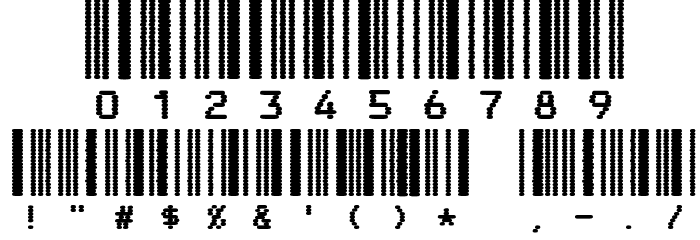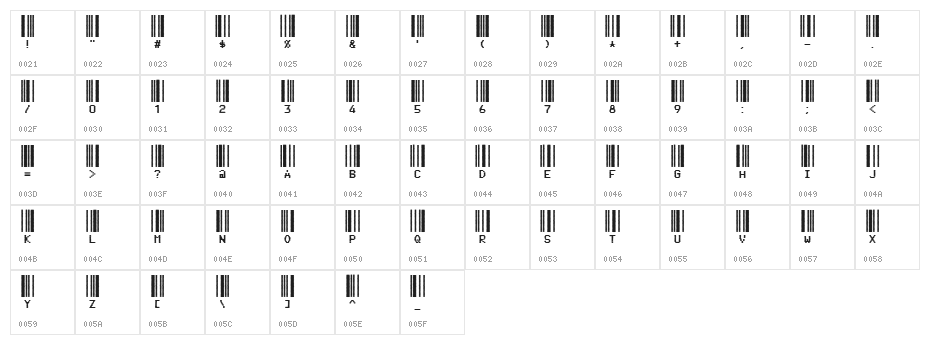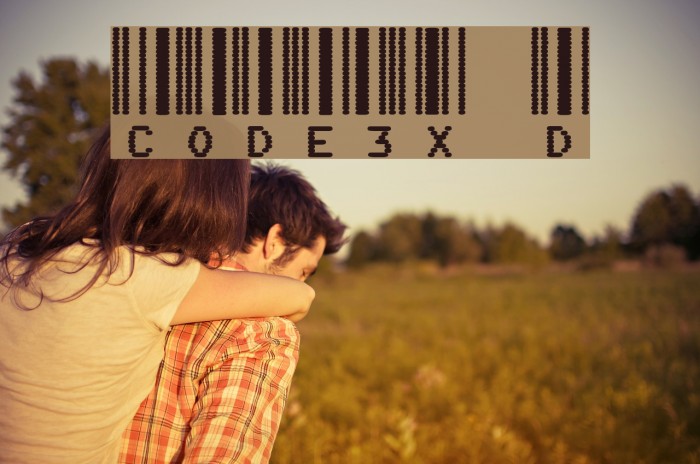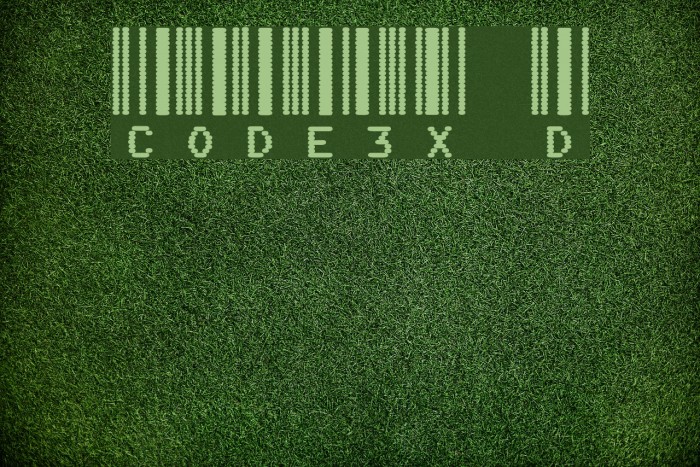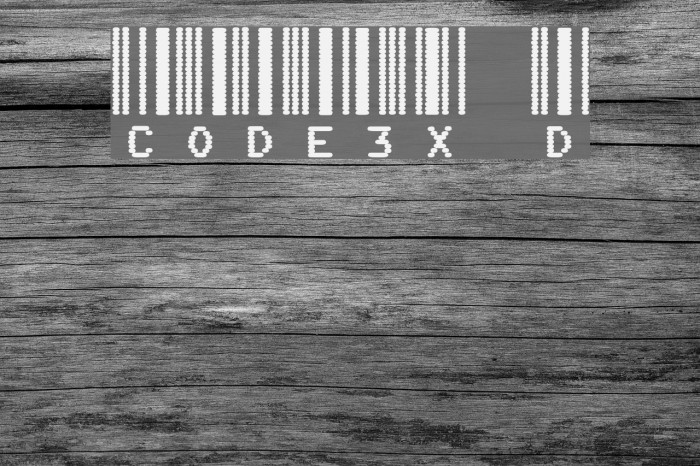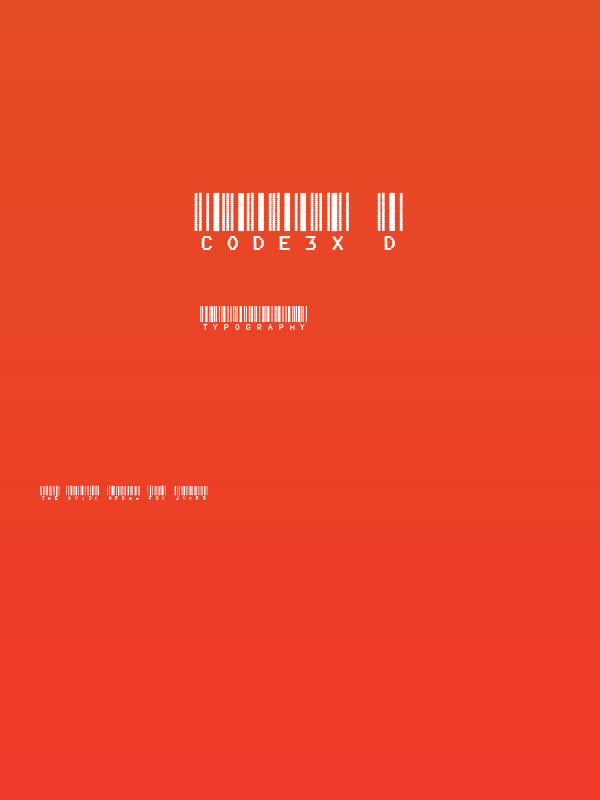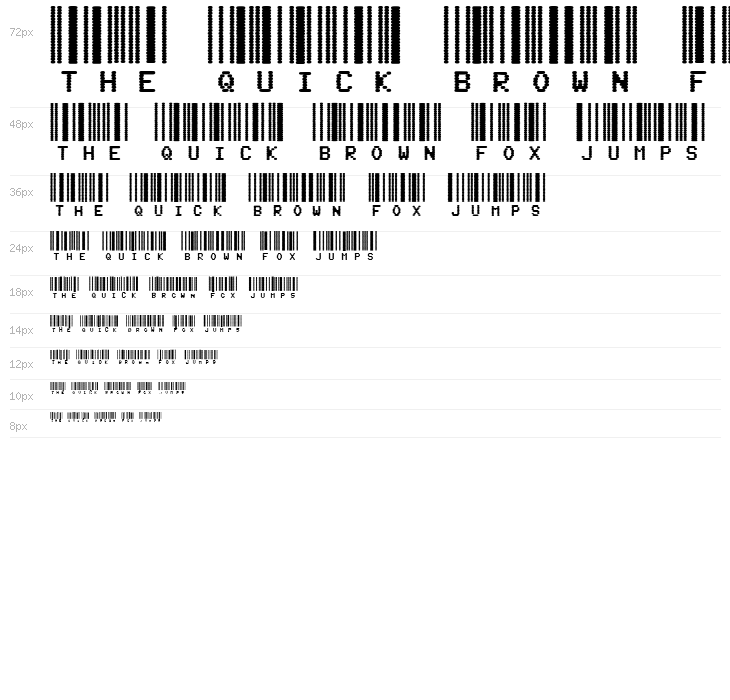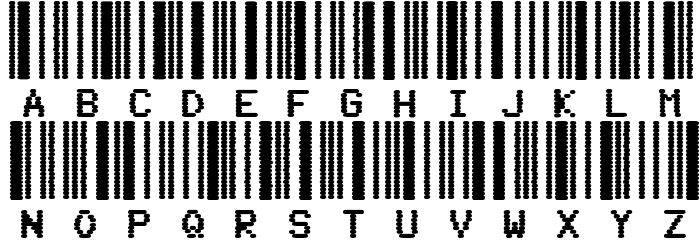
CODE3X D Font
CODE3X D Description
This font is a barcode style typeface that mimics the appearance of traditional barcodes used in product labeling and scanning. Each character is represented by a series of vertical bars of varying thickness, creating a unique and recognizable pattern. The design is highly geometric and structured, with a strong emphasis on vertical lines. This font is ideal for projects that require a modern, industrial, or technological aesthetic. It is not intended for body text due to its unconventional style but can be effectively used in creative designs where a barcode theme is desired.
| Use Case | Logos, Artistic displays, Tech-themed designs |
| Proposed Projects | Ideal for creative projects, tech-themed designs, and artistic displays requiring a barcode aesthetic. |